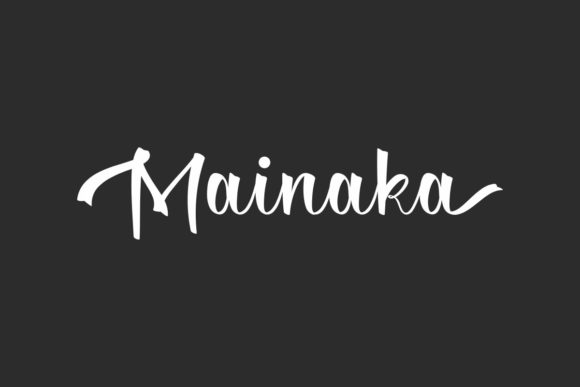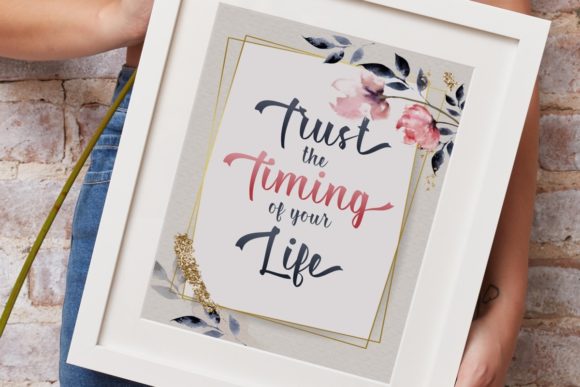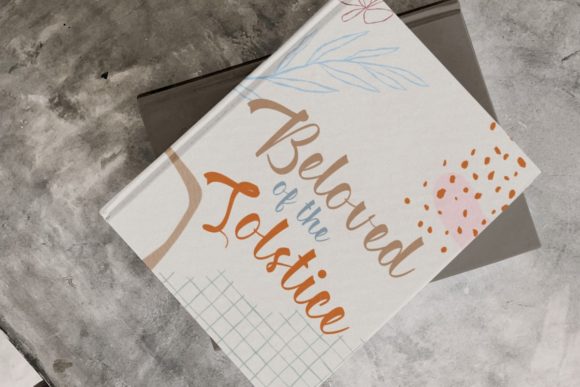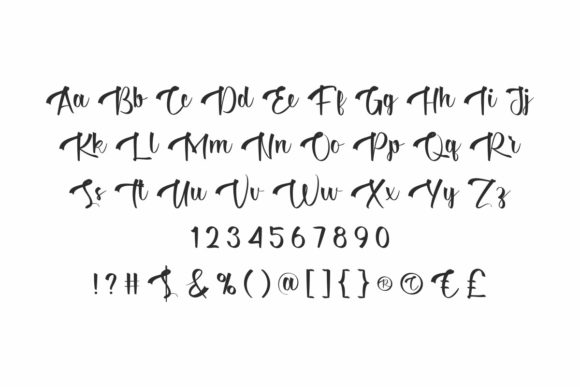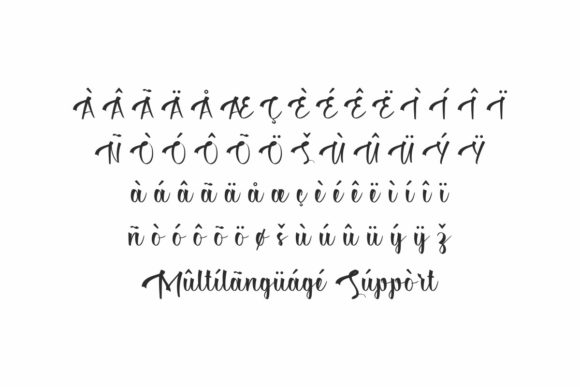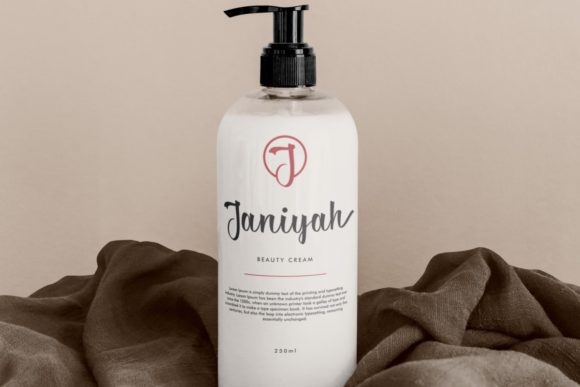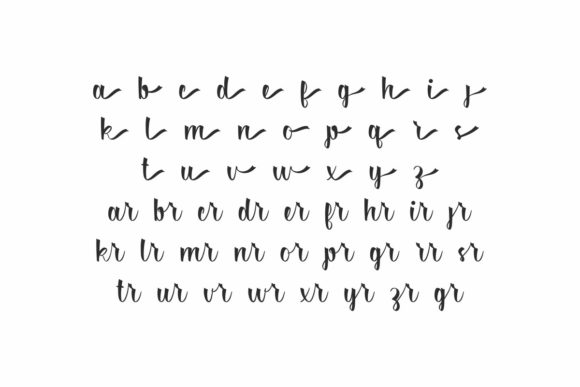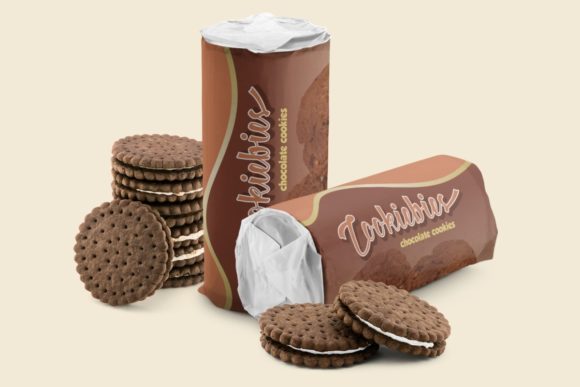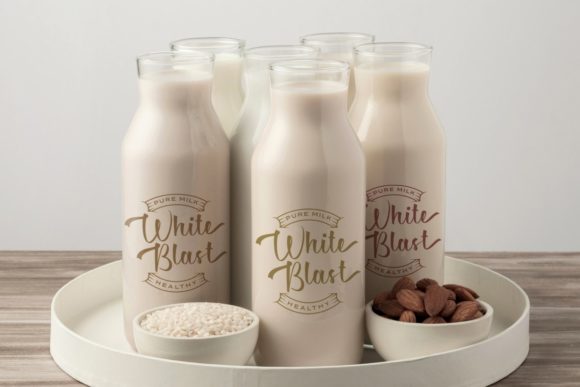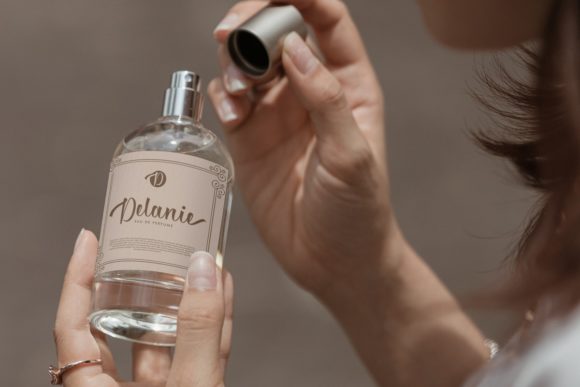
Mainaka Font
About Mainaka Font
“Mainaka” is described as a free-flowing script font crafted for various design applications, including packaging products, invitation cards, flyers, mockups, event posters, and more. It is designed to exude high-quality vibes with a beautiful and balanced character, making it versatile for a large design pool.
The free-flowing nature of “Mainaka” suggests an organic and expressive quality, adding a touch of fluidity to your text. This makes it well-suited for projects that require a sense of elegance and sophistication, such as packaging, invitations, and event posters.
The beautiful and balanced character of the font contributes to its versatility, allowing it to seamlessly fit into a wide range of design contexts. Its readability and aesthetic appeal make it a valuable asset for various creative projects.
The PUA encoding is a noteworthy feature, providing easy access to all glyphs and swashes. This enhances the font’s flexibility, allowing users to customize and personalize their designs with ease.
Consider incorporating “Mainaka” into your next design project where a free-flowing script font with high-quality vibes is desired. Whether it’s for packaging, invitations, flyers, or event posters, let this font bring a beautiful and balanced character to your creative endeavors.